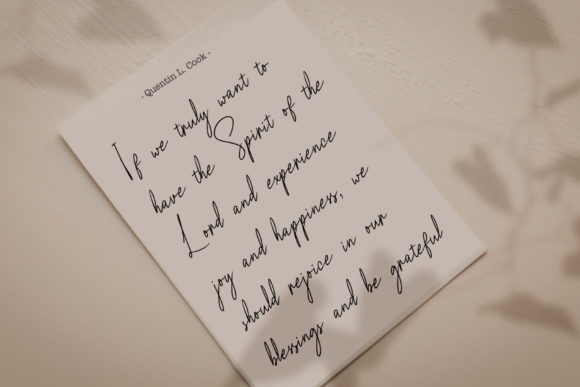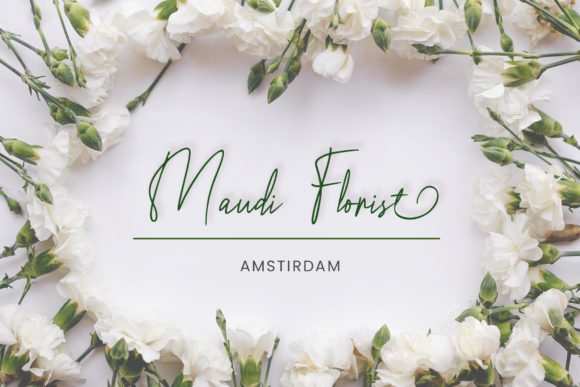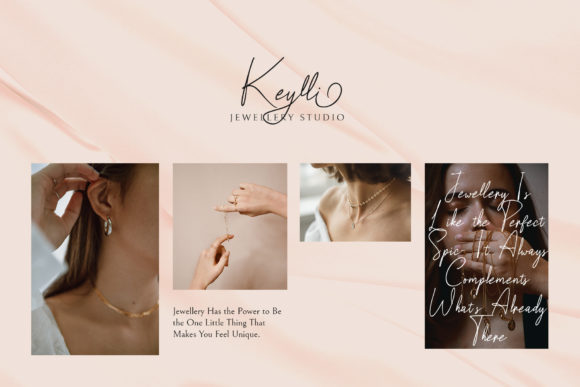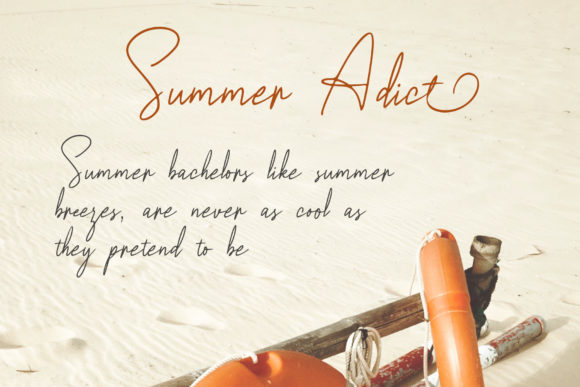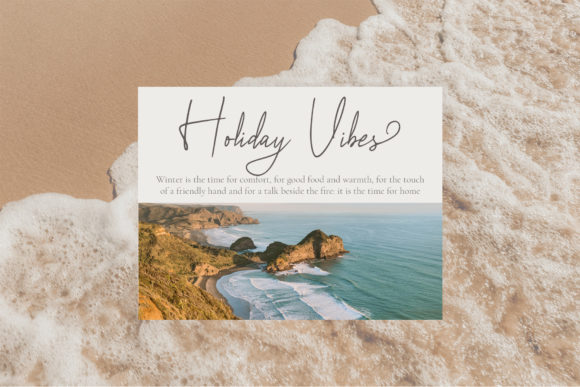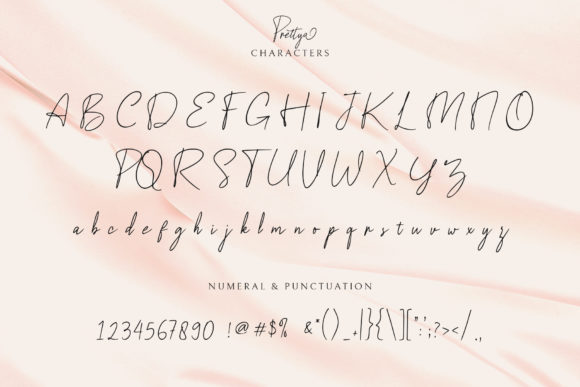
Introduction to Prettya Font
As designers, we’ve all been there – staring at a blank canvas, struggling to find the perfect font to bring our creative project to life. The search can be overwhelming, but sometimes, all it takes is one special font to make our vision shine. Enter Prettya Font, a stunning, thin-lettered, handwritten font that’s as beautiful as it is versatile.
Whether you’re designing a wedding invitation, a thank-you card, or a custom logo, Prettya Font is the perfect choice for adding a touch of personality to your design. Its relaxed, cursive feel is both elegant and approachable, making it a valuable resource for designers who want to create high-quality designs with a personal touch. And the best part? It’s available for free download, complete with a transparent background for seamless integration into your design.
Key Features of Prettya Font
- Designed with a unique aesthetic, featuring elegant and sophisticated typography for a professional look.
- Perfect for use in graphic design, digital art, and other creative pursuits where a high-quality font is essential.
Honest Review: Prettya Font
As a designer, I’m always on the lookout for high-quality design resources to elevate my creative projects. I recently stumbled upon the Prettya Font, and I must say, it’s a gem.
- ✨ Elegant and modern design aesthetic that’s perfect for fashion and lifestyle brands.
- ✨ Transparent background, which allows for seamless integration with any design element.
- ⚠️ Limited character set, which may not be ideal for designers who need to typeset extensive text.
- ⚠️ Not suitable for headlines or titles, as the font may appear too delicate.
Overall, I’m impressed with the Prettya Font. While it may not be the most versatile font, it’s a great addition to any designer’s toolkit. With its elegant design and transparent background, it’s perfect for designers working on fashion and lifestyle projects. If you’re looking for a high-quality font to elevate your design, I’d definitely recommend giving the Prettya Font a try.
Tips for Getting the Most Out of Prettya Font
Experiment with different font sizes, colors, and combinations to find the perfect look for your design. Use the font in conjunction with other design elements, such as images or graphics, to create a cohesive and visually appealing composition.
Use the Prettya Font in a variety of creative projects, such as social media posts, presentations, websites, and documents. Its high-quality design and transparent background make it an ideal choice for designers and non-designers alike.
The Prettya Font is a high-quality font that can be customized using various design software, such as Adobe Illustrator or Photoshop. You can adjust the font size, color, and style to fit your design requirements. However, please note that any modifications to the font may affect its original design and functionality.